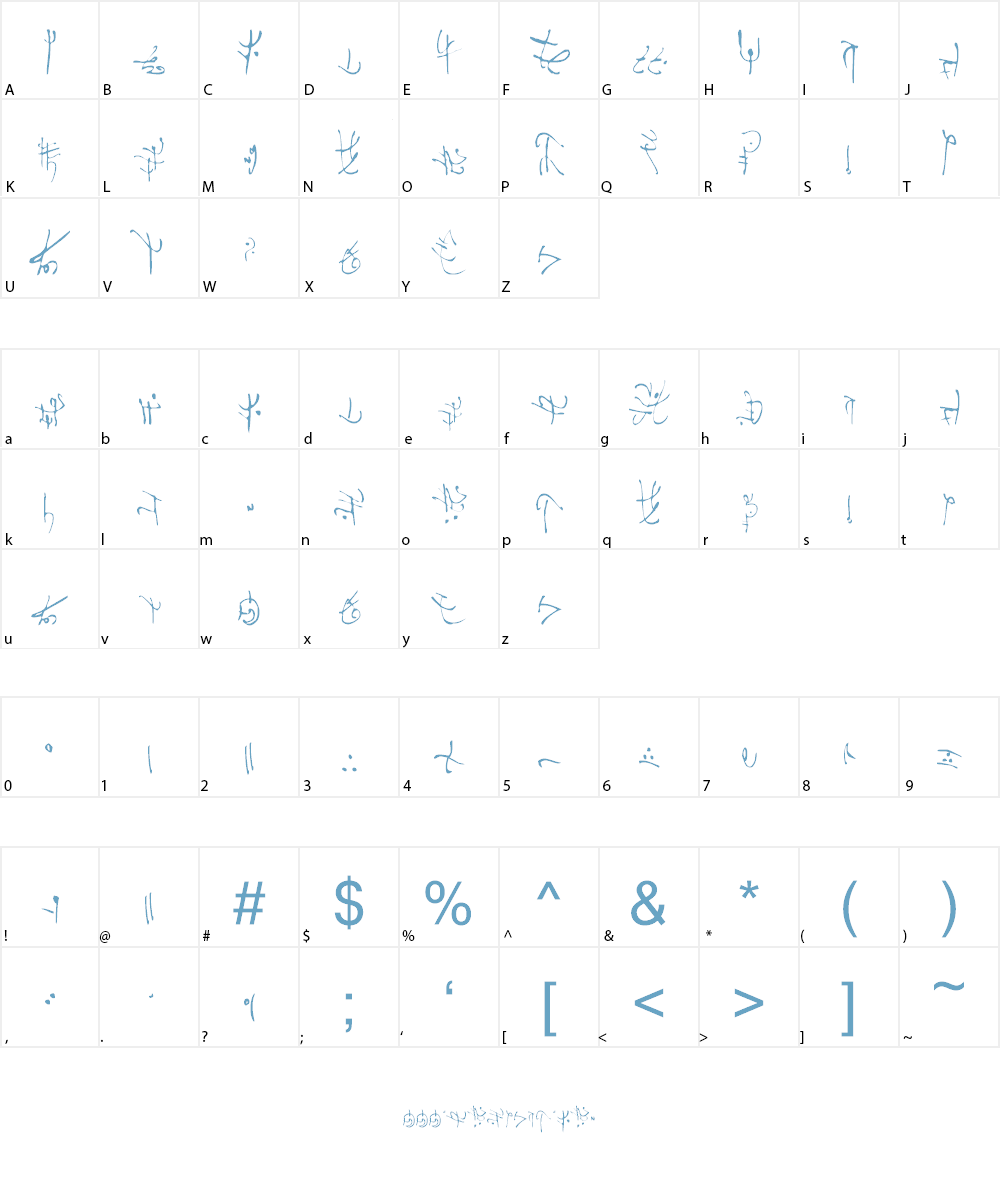
Korohanza is an odd font based on a series of magical characters described by 15th century Tyrolian alchemist Pietro Ulstadt in his work Das Buch Korohanza, and only slightly elaborated on in his seminal Secreto della tramutatione metallica. Since Ulstadt's works contained over 300 such characters and symbols, I've included only a few, and have arbitrarily assigned upper and lower cases, numerals, punctuation, even some diacriticals—but hey, who can tell what's what? Only a long-dead Tyrolian knows the difference.
Okay. The truth is, I really just made up all that stuff about Ulstadt. I made this font—but the other story sounds better. See if you can figure out a good use for this font; I sure can't. You could use it to send secret messages to your pals, or maybe to ad an exotic, decorative touch to otherwise drab correspondence. Sets well at small to medium point sizes.